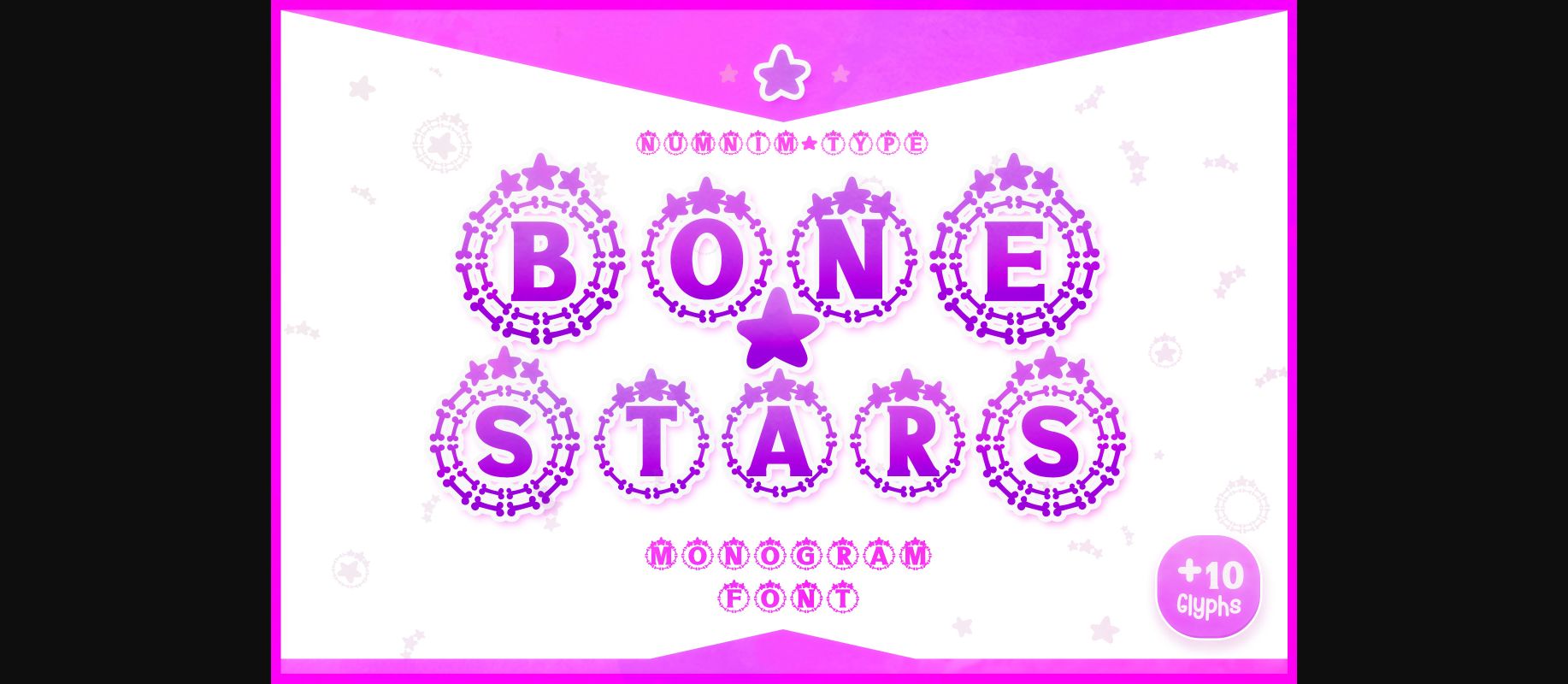
About Bone Stars Font
Bone Stars is a festive and fun decorative font. This font is PUA encoded which means you can access all of the glyphs and swashes with ease!